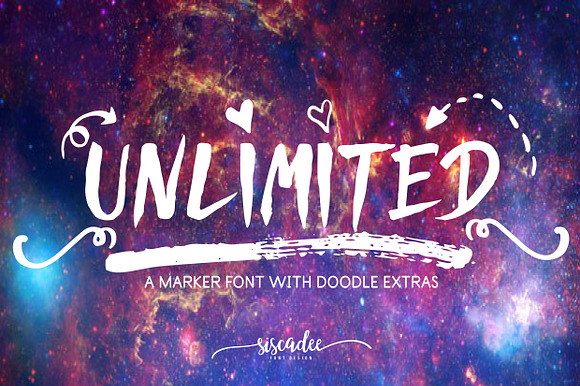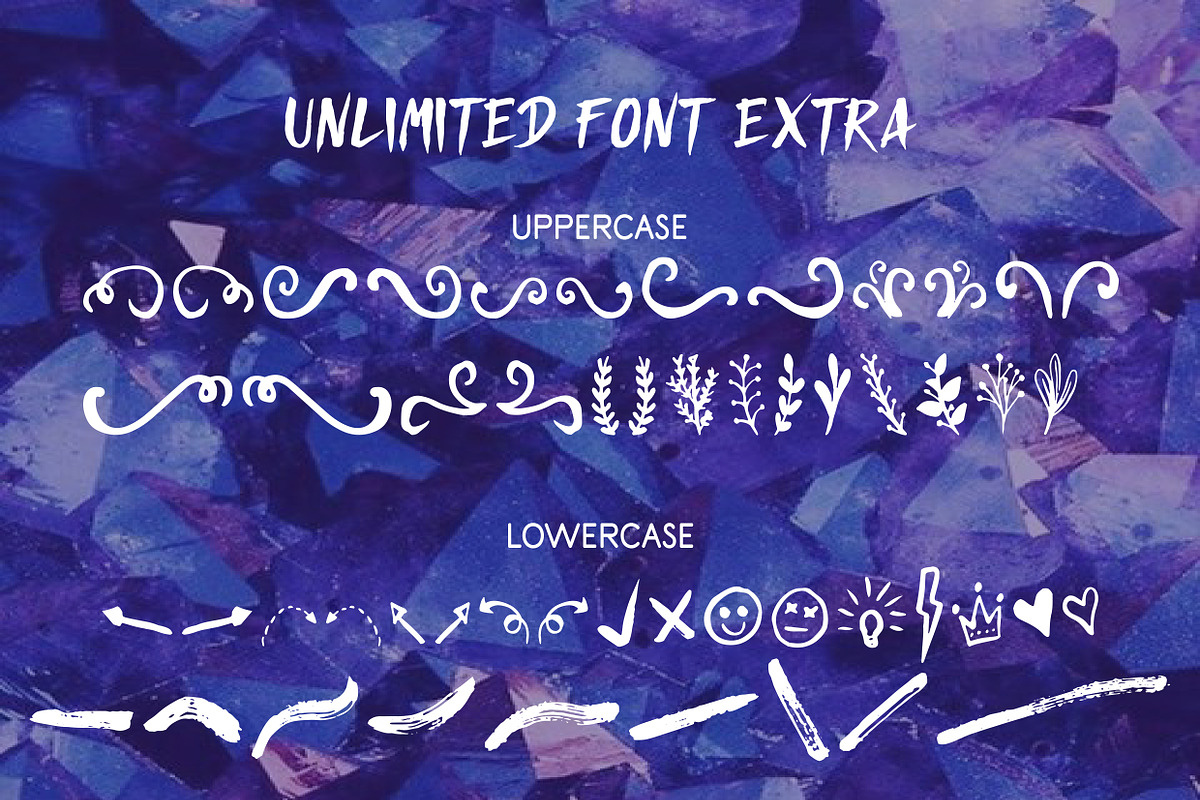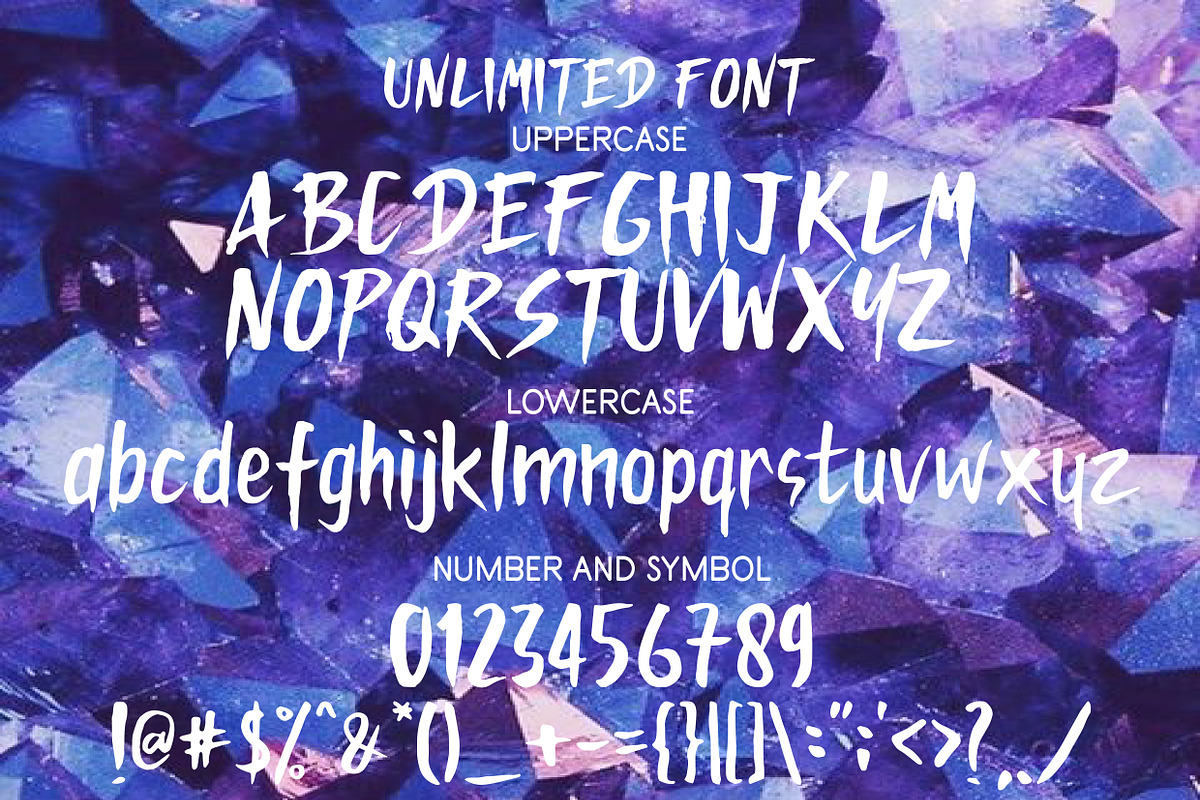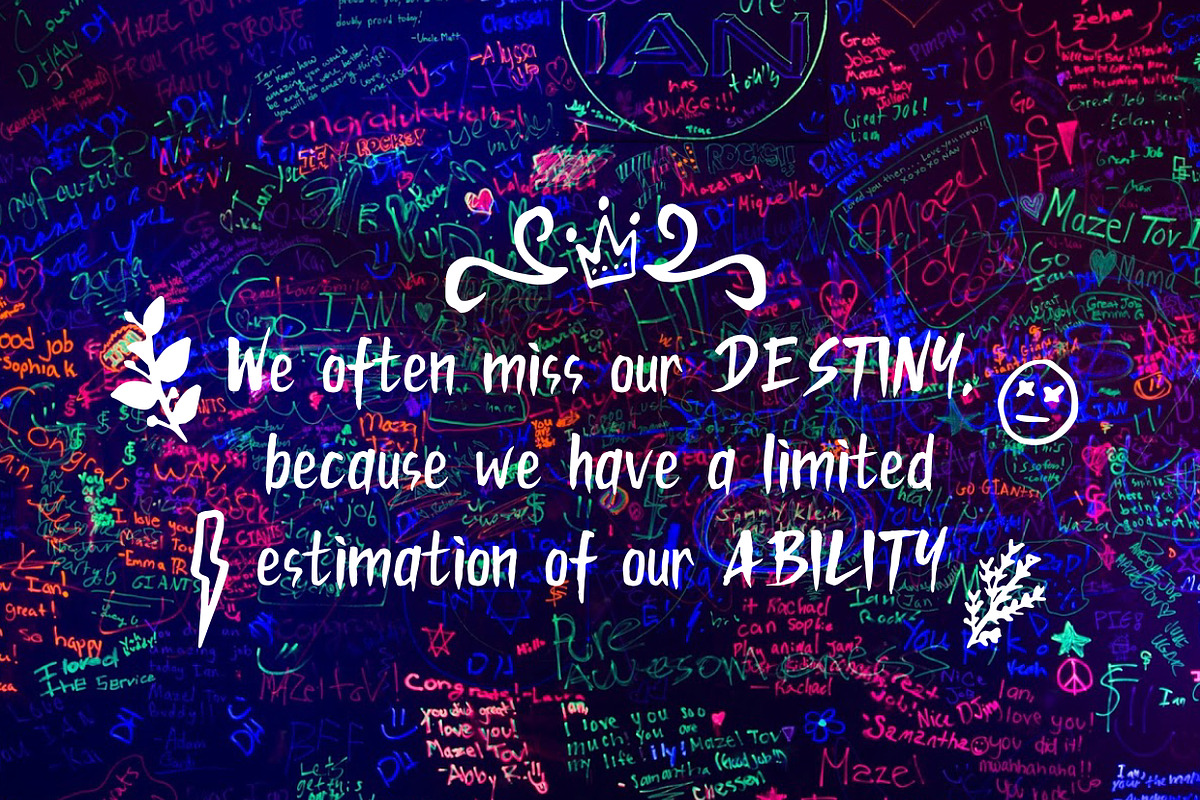
Unlimited Font
Meet the UNLIMITED font. Sanserif font with marker style. Accompanied by a set of ornament, emoticons, doodle, and brush texture.
Unlimited Font by siscxiu fits naturally into Branding, posters, packaging, typography.